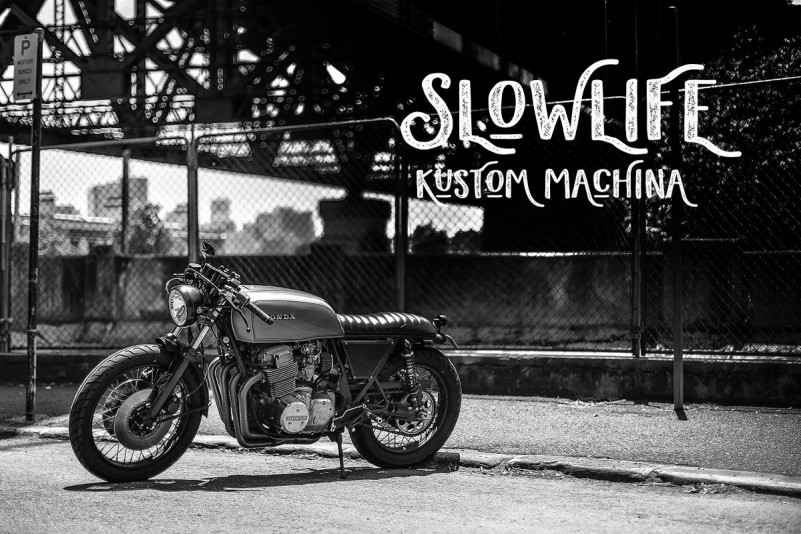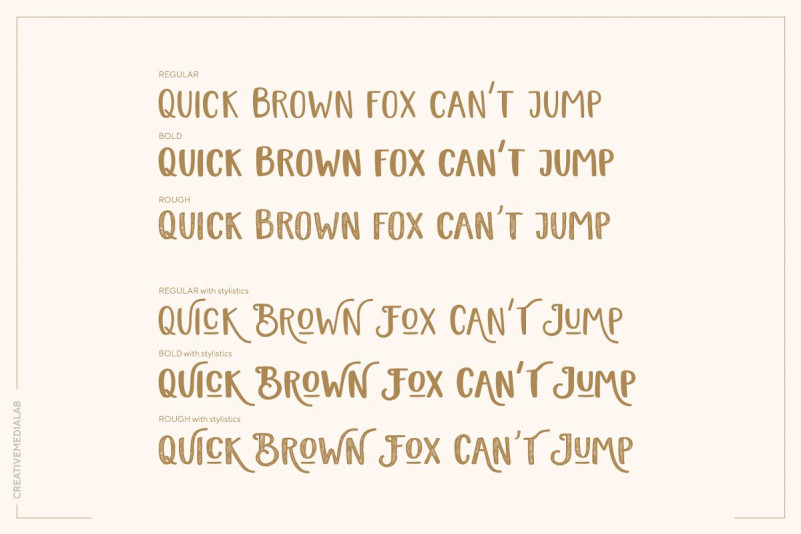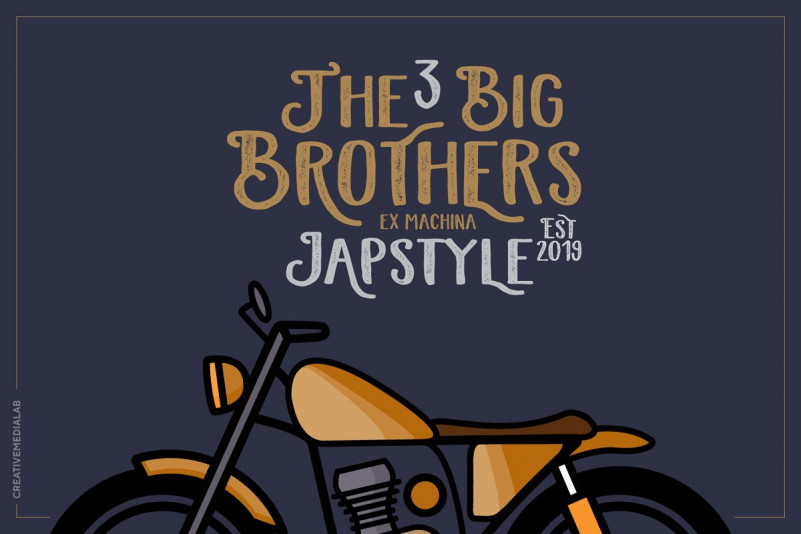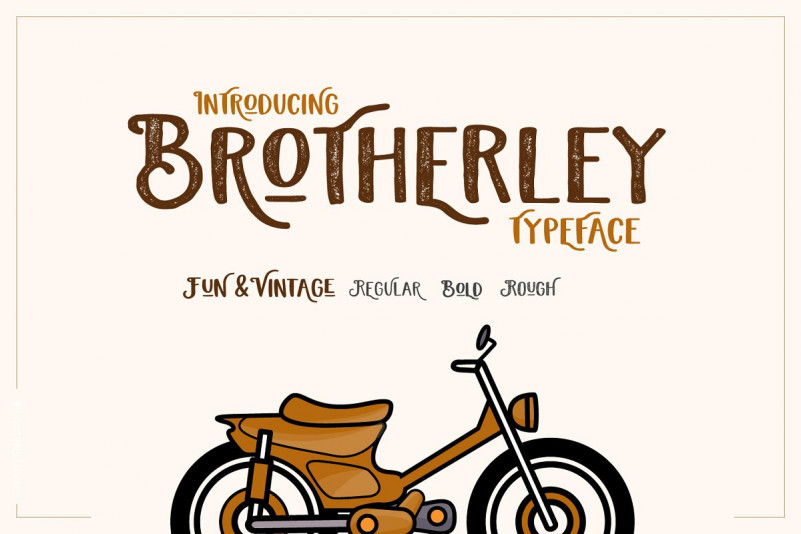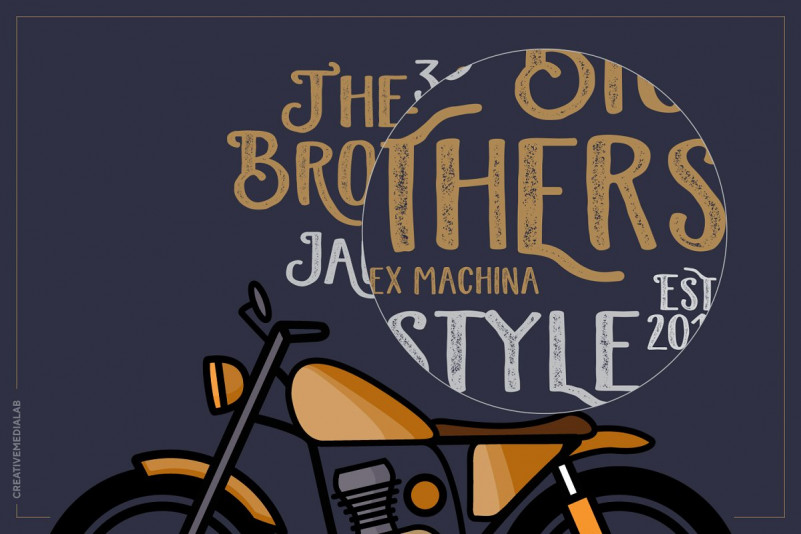
Brotherley Typeface
Continues to be a vintage font. This is a sans serif display font inspired by the old motorcycles, they have a mischievous and playful hand-drawn character. Introducing Brotherley Font. Brotherley Typeface is a vintage font in a modern style, fun and handmade. consists of 3 types, regular, bold and rough style. including stylistic features on some characters that can be adjusted to the sentence in your design. Other than vintage fonts in general, Brotherley is also suitable for kids and adult tshirt designs, posters, logos, and much more.
Brotherly is perfect for those who need vintage fonts but with different styles, fun and not too stiff.